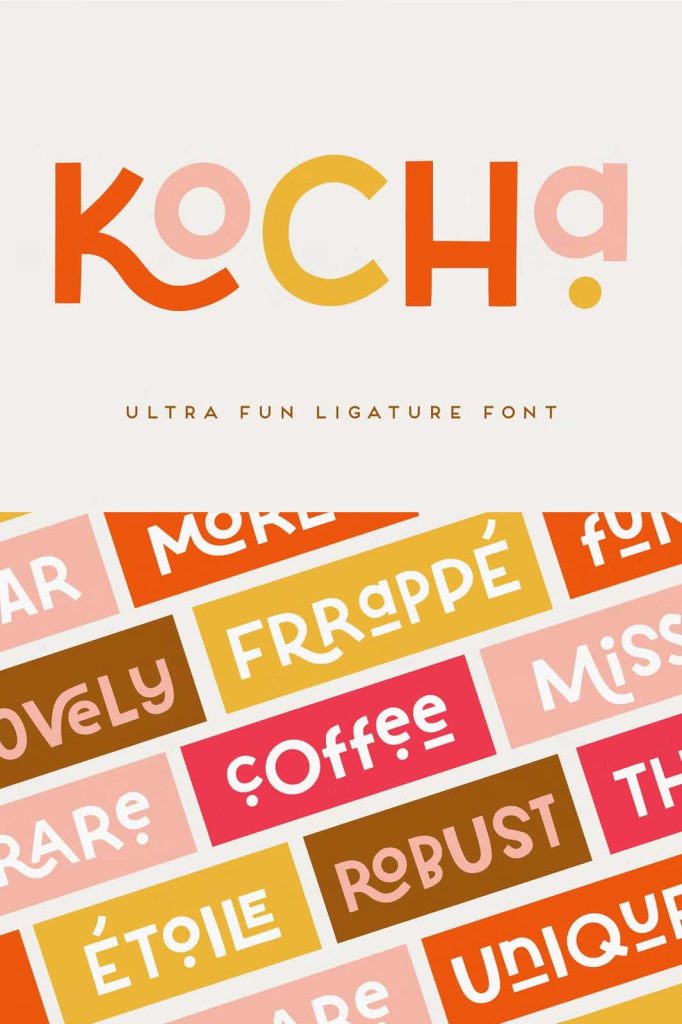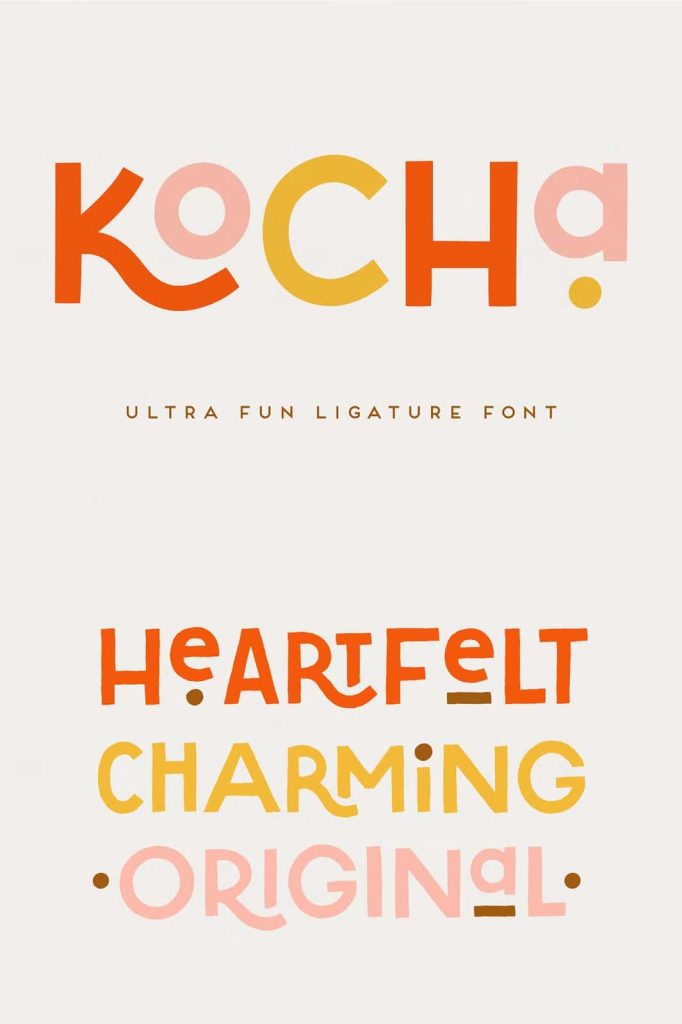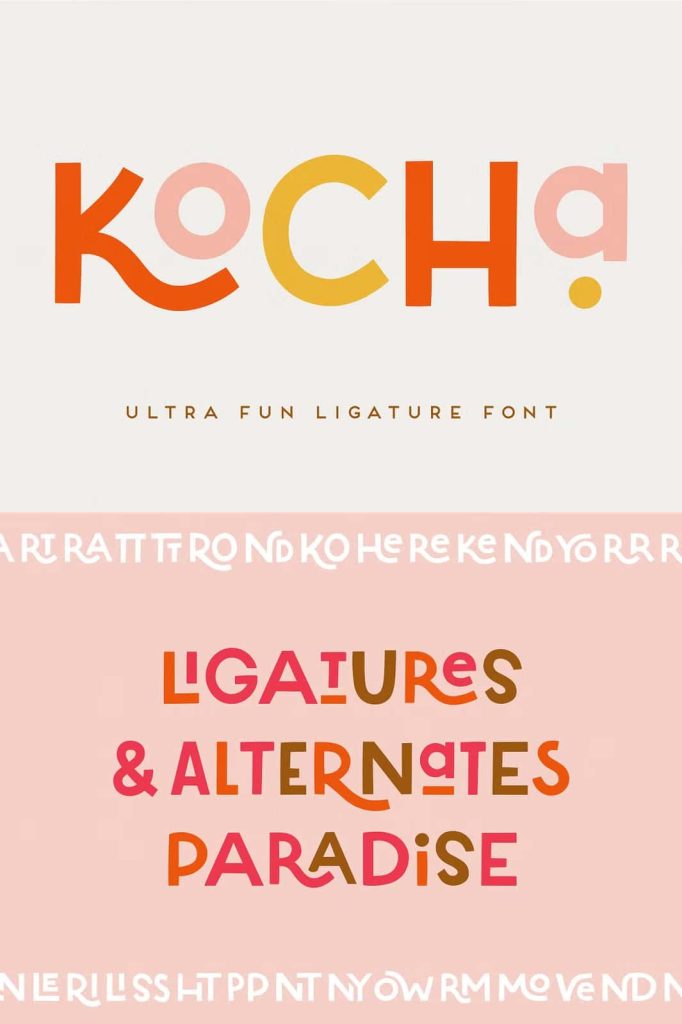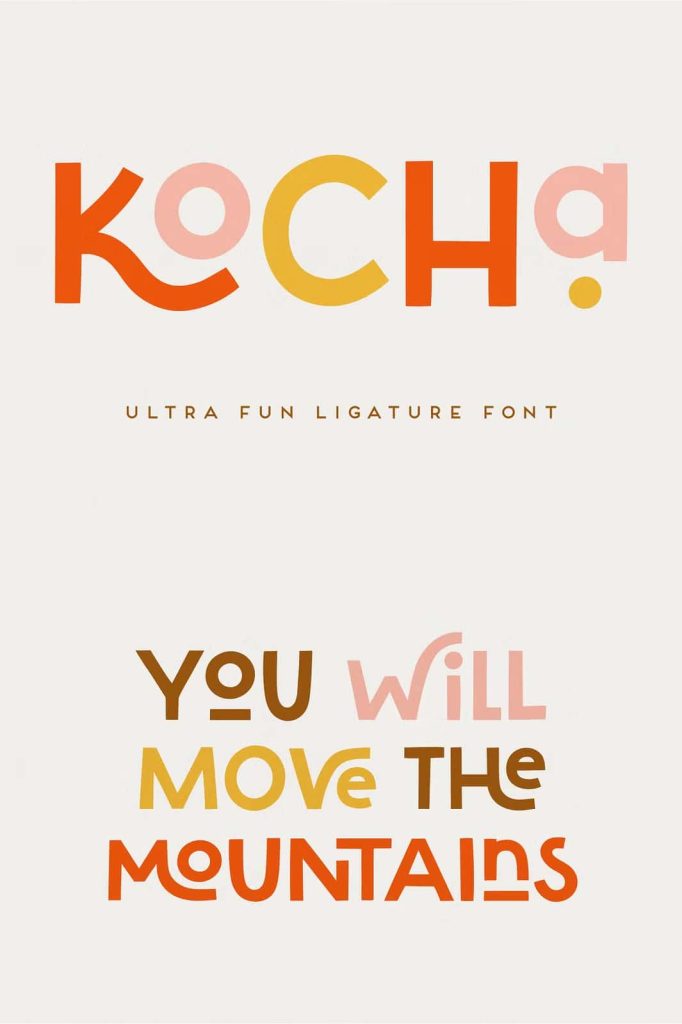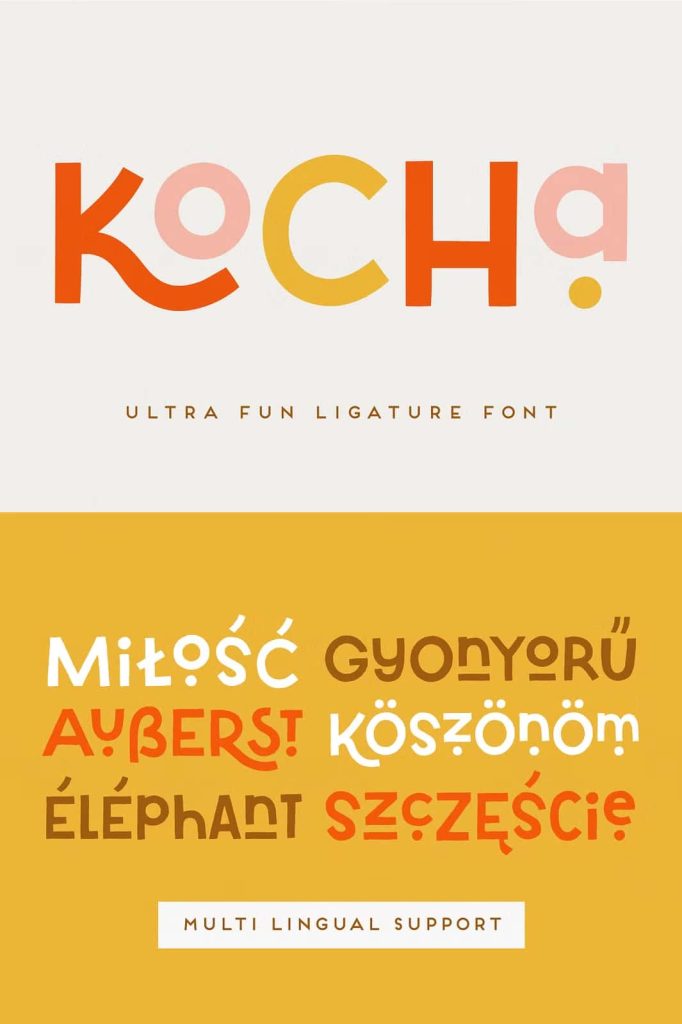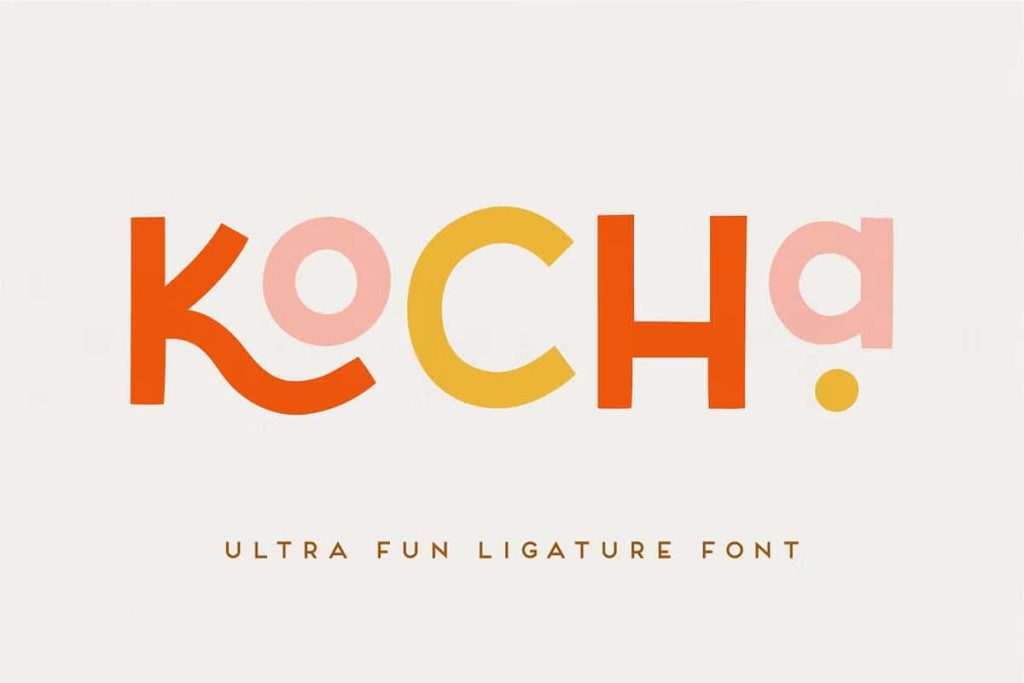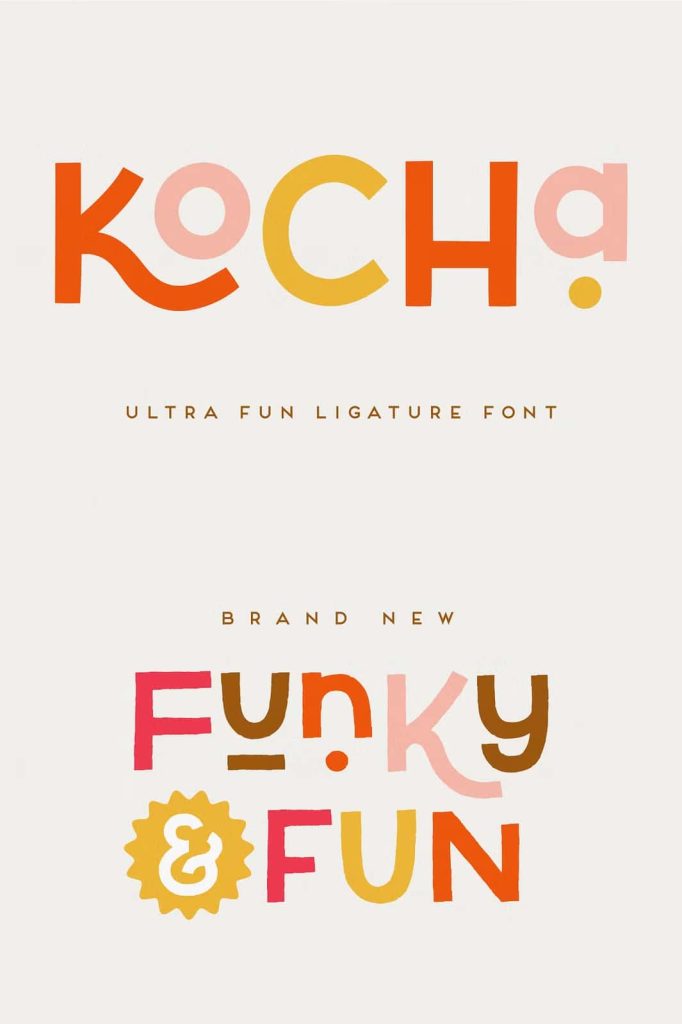
Kocha Hand-Drawn Display Font: Charming Typography with Artistic Personality
Kocha Hand-Drawn Display Font is a creative and expressive typeface designed to bring warmth, charm, and personality to modern design projects. Inspired by the natural flow of hand-drawn lettering, this display font captures the authentic character of handmade typography while offering the consistency required for professional design work. Designers who want to add a unique and friendly tone to their typography will find Kocha to be a versatile and engaging solution.
The font features playful shapes, smooth strokes, and organic letterforms that immediately create a welcoming visual atmosphere. Unlike rigid or mechanical fonts, Kocha embraces the imperfect beauty of hand-drawn design. This quality allows it to stand out in creative layouts while maintaining readability and balance.
Kocha Hand-Drawn Display Font also includes a rich set of ligatures and stylistic alternates that allow designers to customize their typography and create unique lettering combinations. These features help transform simple text into expressive visual compositions that feel natural and handcrafted.
A Hand-Drawn Display Font with Character
Kocha Hand-Drawn Display Font stands out because of its authentic handmade appearance. Each letter reflects the organic movement of a pen or brush, giving the typeface a natural and lively personality. This artistic style creates typography that feels approachable, friendly, and full of character.
Hand-drawn fonts are often used when designers want to communicate creativity and individuality. Kocha captures these qualities beautifully while maintaining a balanced structure that ensures clarity in different design contexts. The letters flow smoothly together while preserving enough variation to keep the typography visually interesting.
Because of its expressive design, Kocha works particularly well in projects that require personality and artistic flair. The font adds life to typography and helps designers create layouts that feel more engaging and memorable.
Rich Ligatures for Natural Letter Connections
Kocha Hand-Drawn Display Font includes a generous collection of ligatures that improve the flow between certain letter combinations. Ligatures replace standard character pairs with specially designed glyphs that connect letters more smoothly. These connections create a more natural and harmonious appearance within words.
When used in headlines or decorative text, ligatures enhance the visual rhythm of typography. They eliminate awkward spacing and introduce elegant transitions between characters. Designers can activate these features in professional design software to automatically apply the ligatures where appropriate.
This functionality makes it easier to create cohesive and polished typography without sacrificing the handmade style that defines the font. The result is lettering that feels fluid, organic, and visually balanced.
Stylistic Alternates for Creative Customization
In addition to ligatures, Kocha Hand-Drawn Display Font includes multiple stylistic alternates that allow designers to modify the appearance of individual characters. These alternate glyphs provide different versions of certain letters, enabling users to experiment with typography and create more personalized designs.
Stylistic alternates help prevent repetitive letterforms within words and phrases. By switching between different variations, designers can produce text that feels more dynamic and natural. This flexibility is especially useful when creating logos, headlines, or decorative lettering where visual uniqueness plays a key role.
The combination of ligatures and stylistic alternates makes Kocha an excellent tool for designers who want full creative control over their typography.
Perfect for Logos and Branding
Typography plays a crucial role in building brand identity. Kocha Hand-Drawn Display Font offers a distinctive style that helps brands communicate creativity and authenticity. The playful letterforms create memorable logos that stand out while still maintaining a friendly and approachable tone.
Designers often use hand-drawn fonts for boutique brands, artisan products, lifestyle businesses, and creative studios. Kocha fits perfectly within these categories because it conveys individuality and handcrafted quality. Its charming appearance helps brands establish a strong visual personality.
The font works particularly well for brand marks, product names, and decorative brand elements. Designers can combine Kocha with clean sans-serif fonts to create balanced typography systems that highlight the handmade character of the brand.
Ideal for Greeting Cards and Creative Stationery
Greeting cards and stationery designs often require typography that feels warm and personal. Kocha Hand-Drawn Display Font provides exactly that. The charming letterforms create a welcoming tone that works beautifully for celebratory messages, invitations, and personal notes.
Designers can use this font to highlight key phrases, titles, or decorative text within greeting card layouts. The playful style helps convey emotion and personality, making the design feel more heartfelt and engaging.
Because the font maintains strong readability, it can be used in both short headlines and slightly longer text phrases without losing clarity.
Create Eye-Catching Posters and Packaging
Kocha Hand-Drawn Display Font also performs exceptionally well in posters and product packaging. The expressive shapes attract attention and help designs stand out in crowded visual environments. Designers can use the font to create bold headlines or artistic text elements that capture the viewer’s interest.
In packaging design, the hand-drawn character adds a sense of authenticity and craftsmanship. This quality works particularly well for handmade products, organic goods, craft brands, and creative merchandise. The font helps products communicate a story of creativity and individuality.
Designers can combine Kocha with simple backgrounds or minimal layouts to allow the typography to take center stage.
Versatile Typography for Creative Projects
Kocha Hand-Drawn Display Font offers versatility that extends beyond branding and print design. Designers can also use it for social media graphics, website headers, promotional materials, and creative marketing campaigns. The playful personality helps digital designs feel more engaging and approachable.
The font works particularly well for projects that require a casual and artistic tone. Designers can use it to enhance portfolios, craft blogs, creative websites, and lifestyle branding materials.
Because of its expressive character, Kocha allows designers to experiment with typography while maintaining a cohesive visual style.
Create Unique and Memorable Designs with Kocha
Kocha Hand-Drawn Display Font provides designers with a powerful tool for creating typography that feels warm, artistic, and distinctive. The combination of hand-drawn letterforms, elegant ligatures, and stylistic alternates allows endless creative possibilities.
Whether used for logos, greeting cards, posters, packaging, or digital graphics, the font adds personality and charm to every project. Its handmade character helps designs feel authentic while maintaining professional quality and readability.
If you want a display font that captures the spirit of handcrafted typography while offering modern design flexibility, Kocha Hand-Drawn Display Font is an excellent choice. It transforms simple words into expressive visual statements that leave a lasting impression.